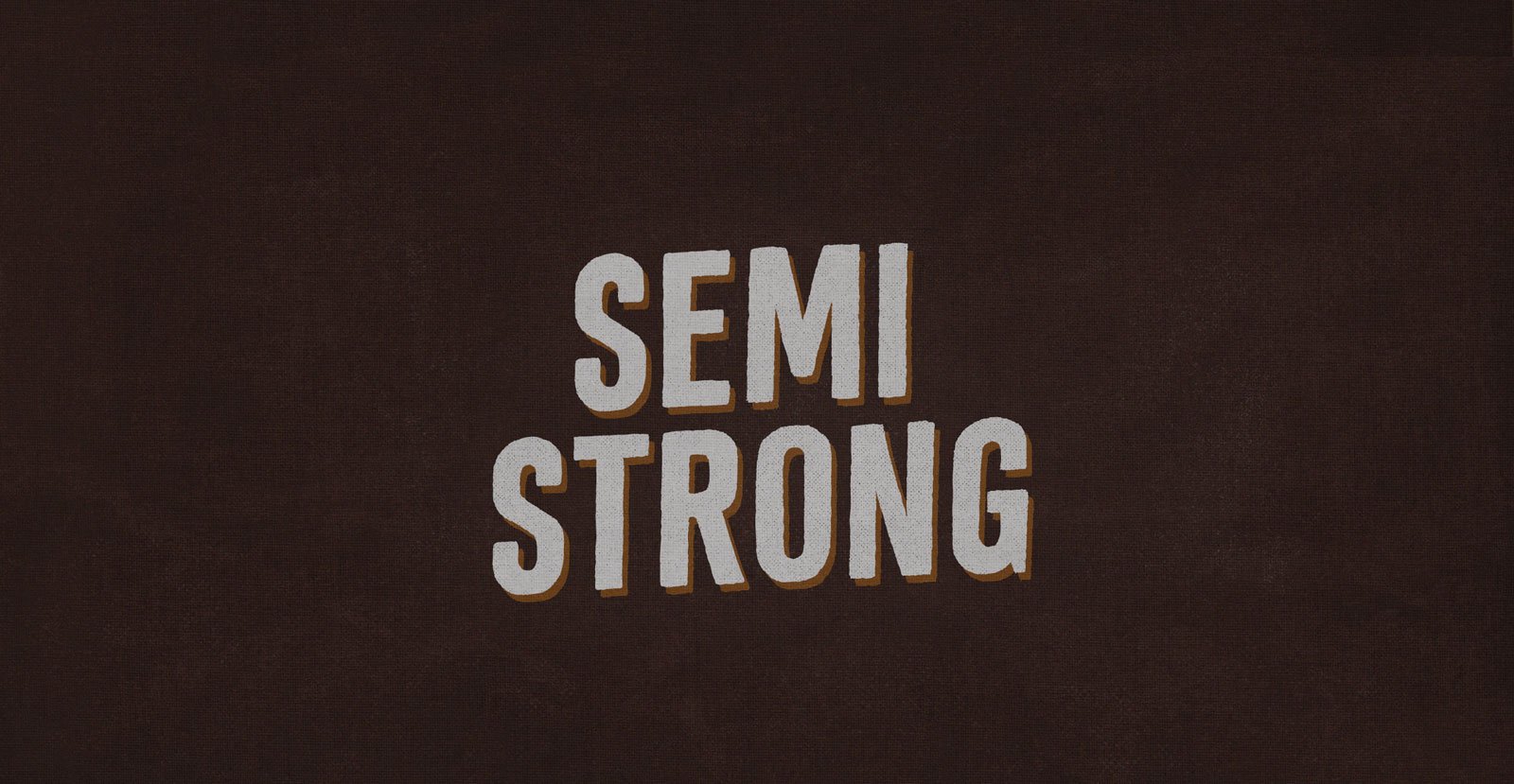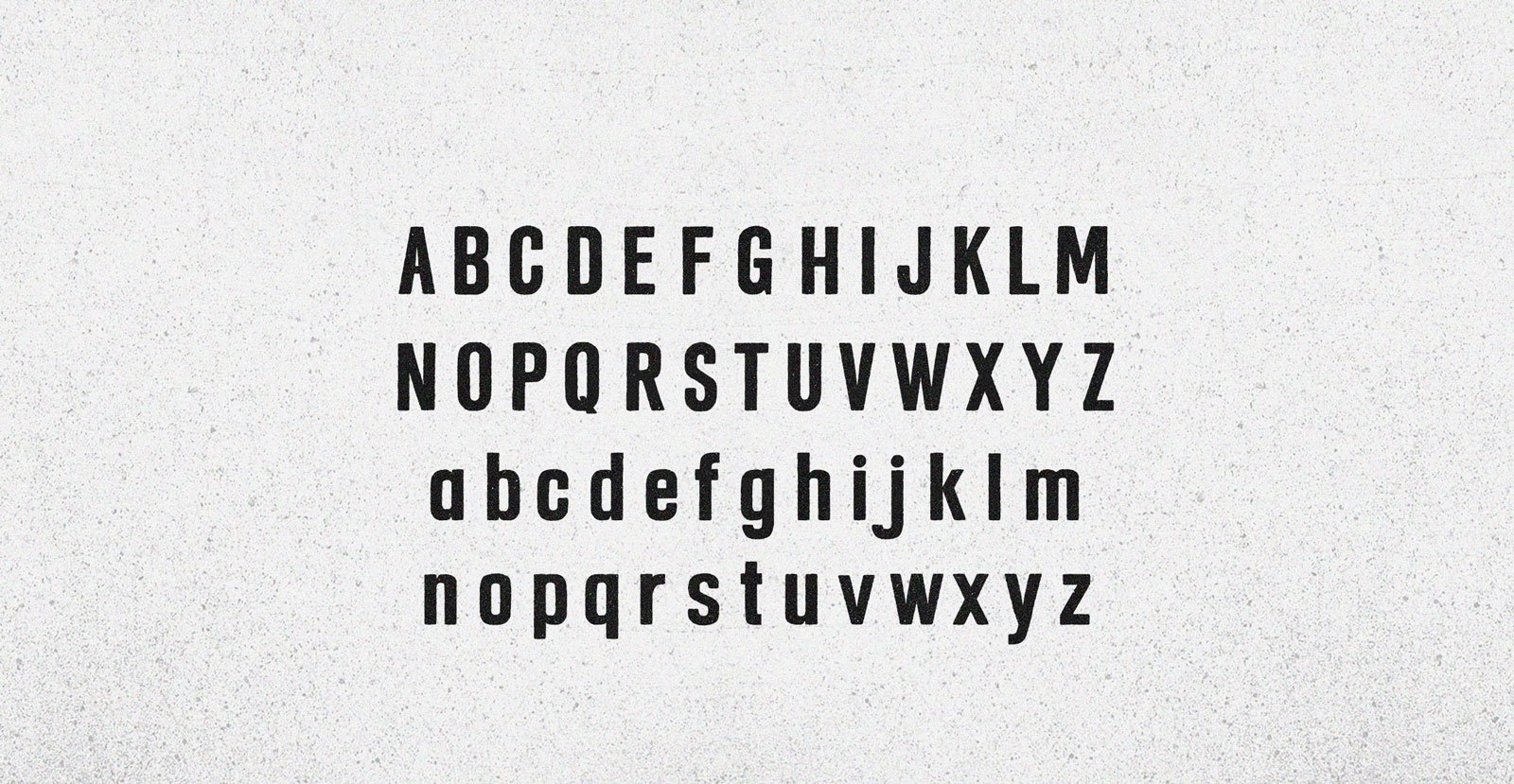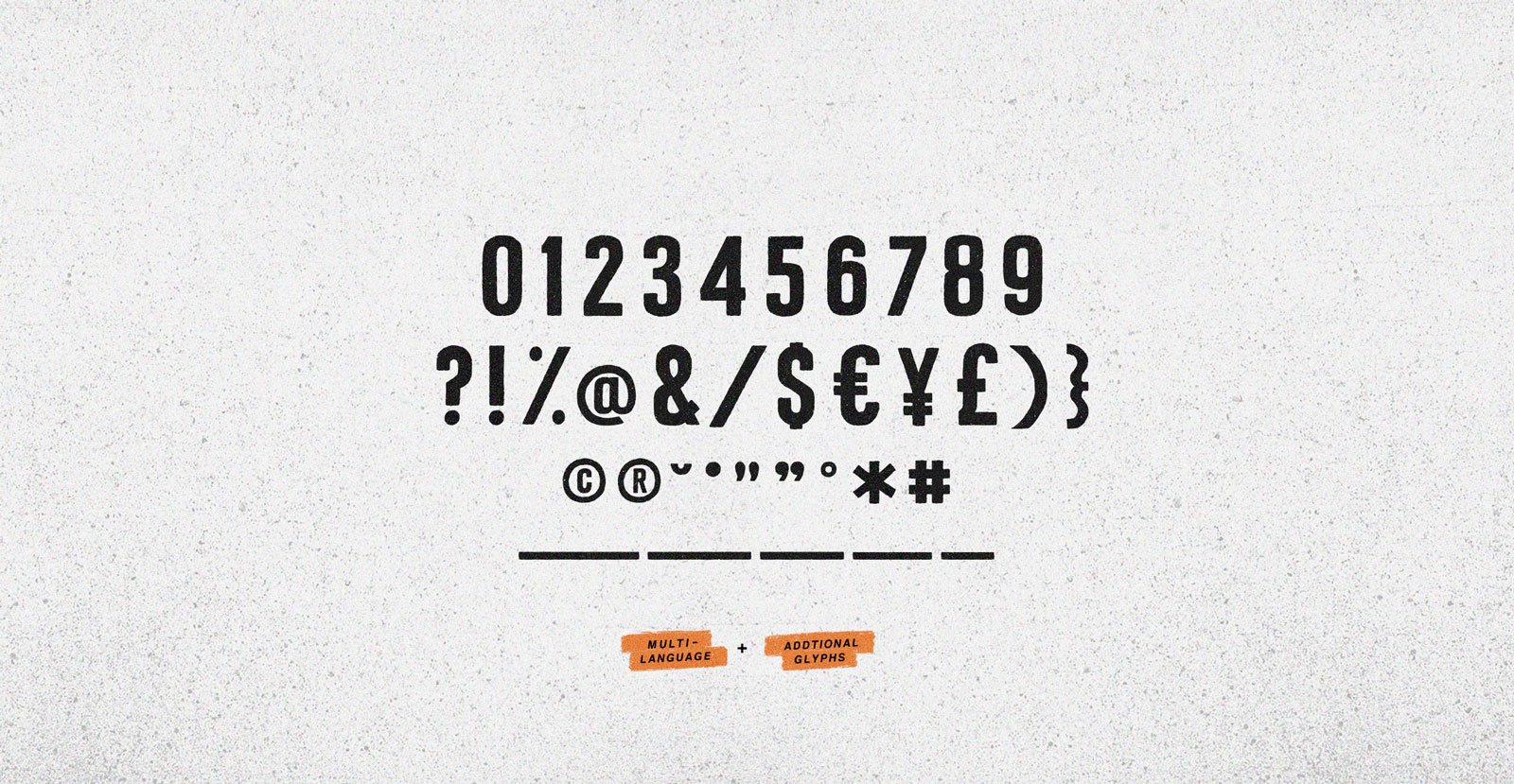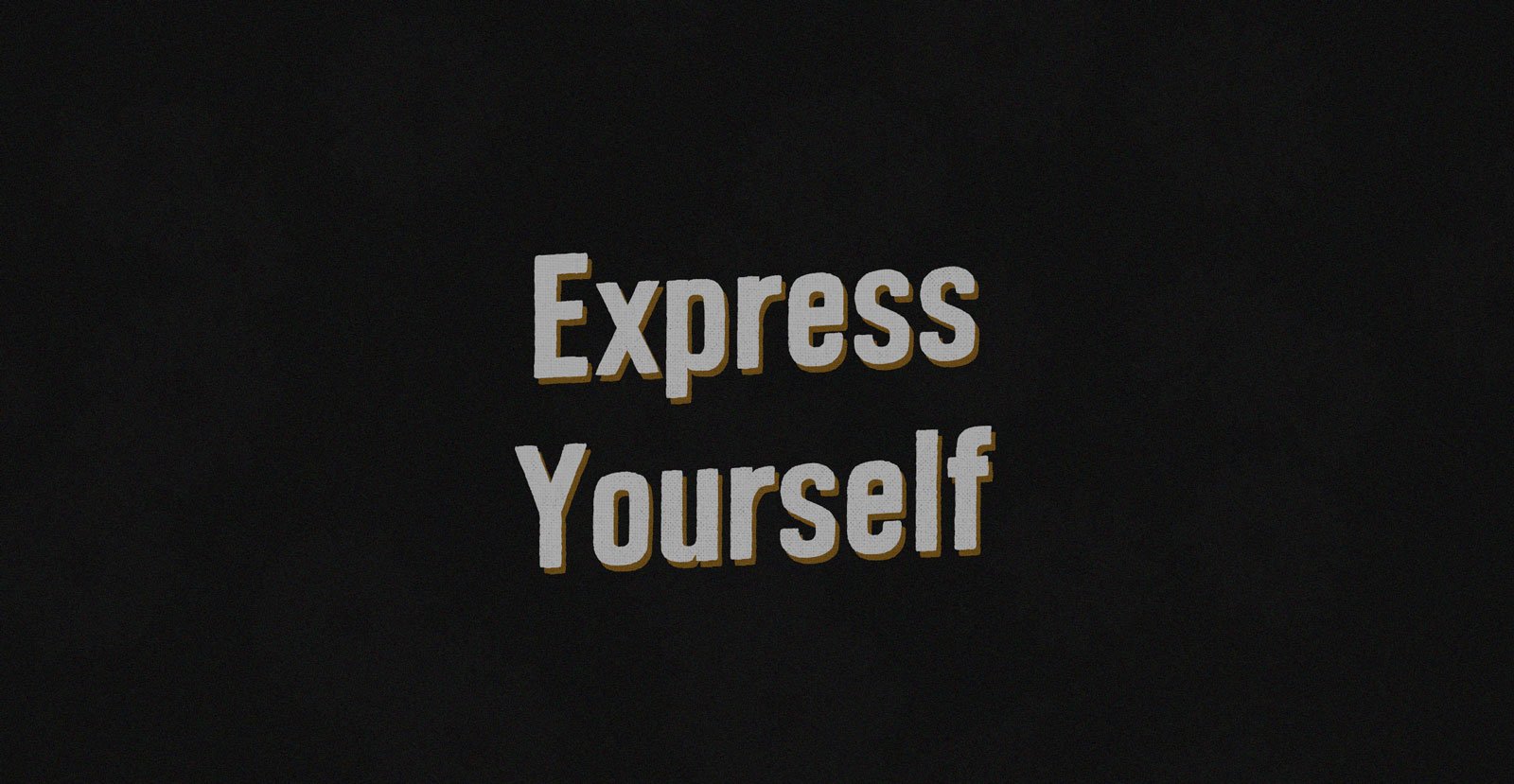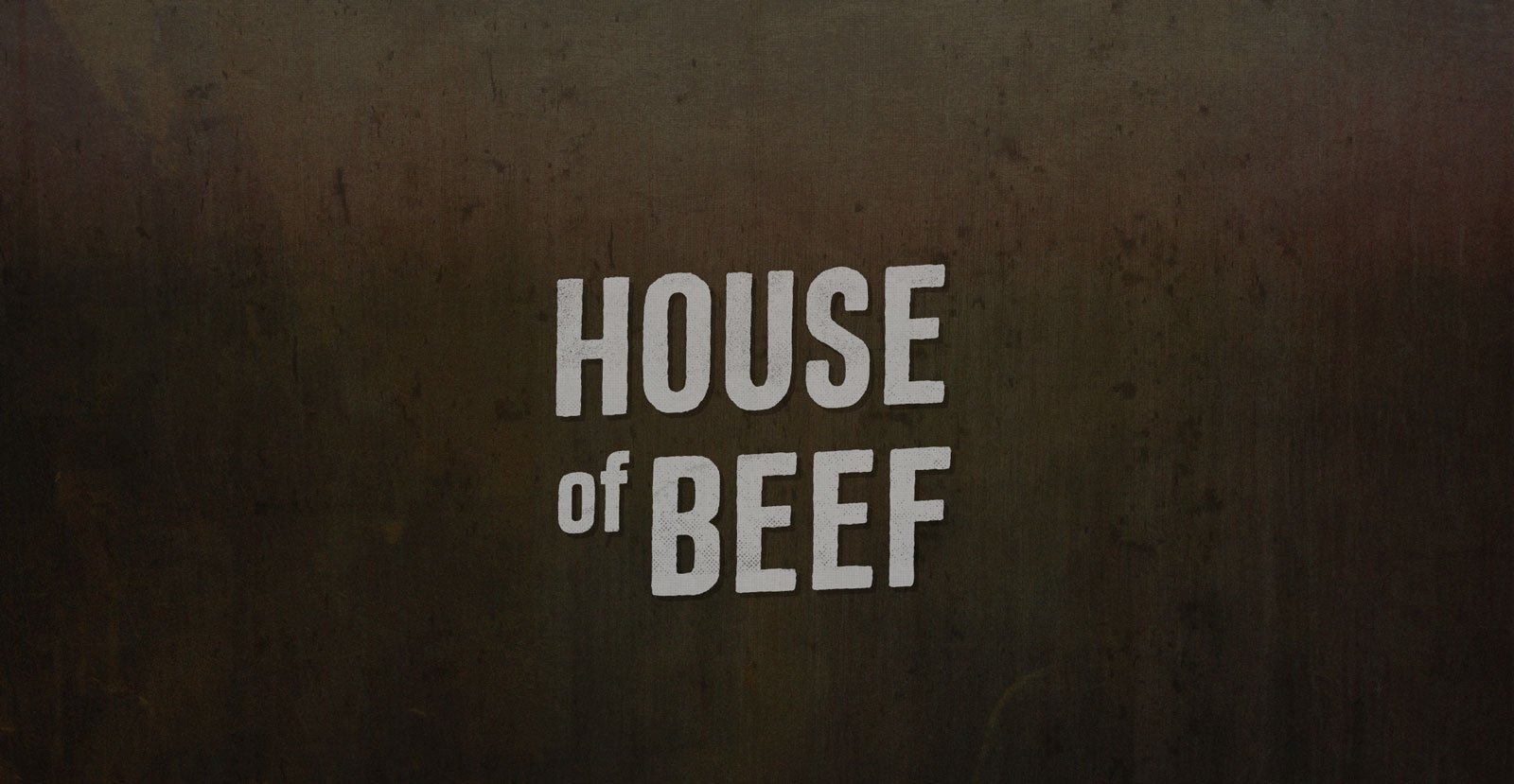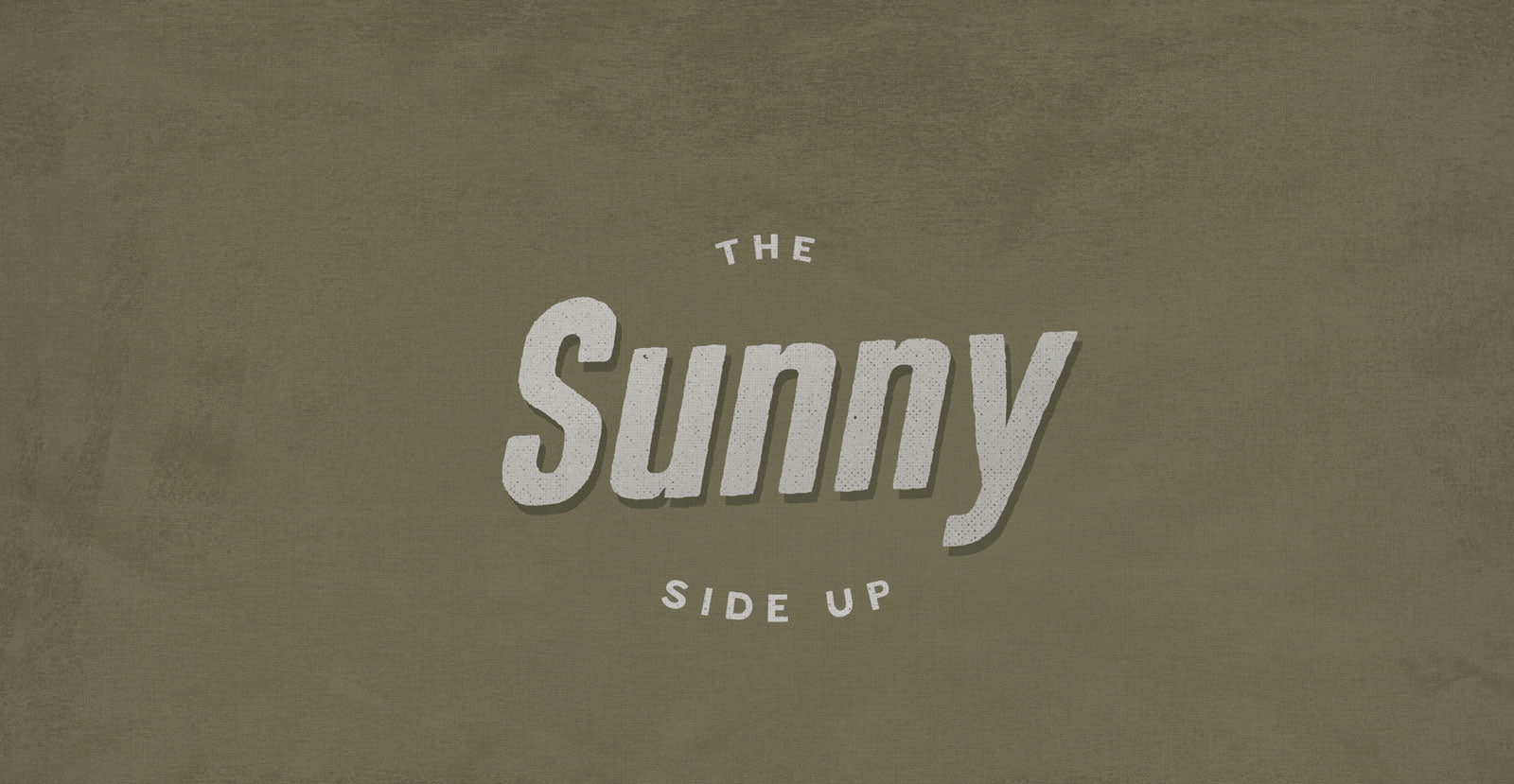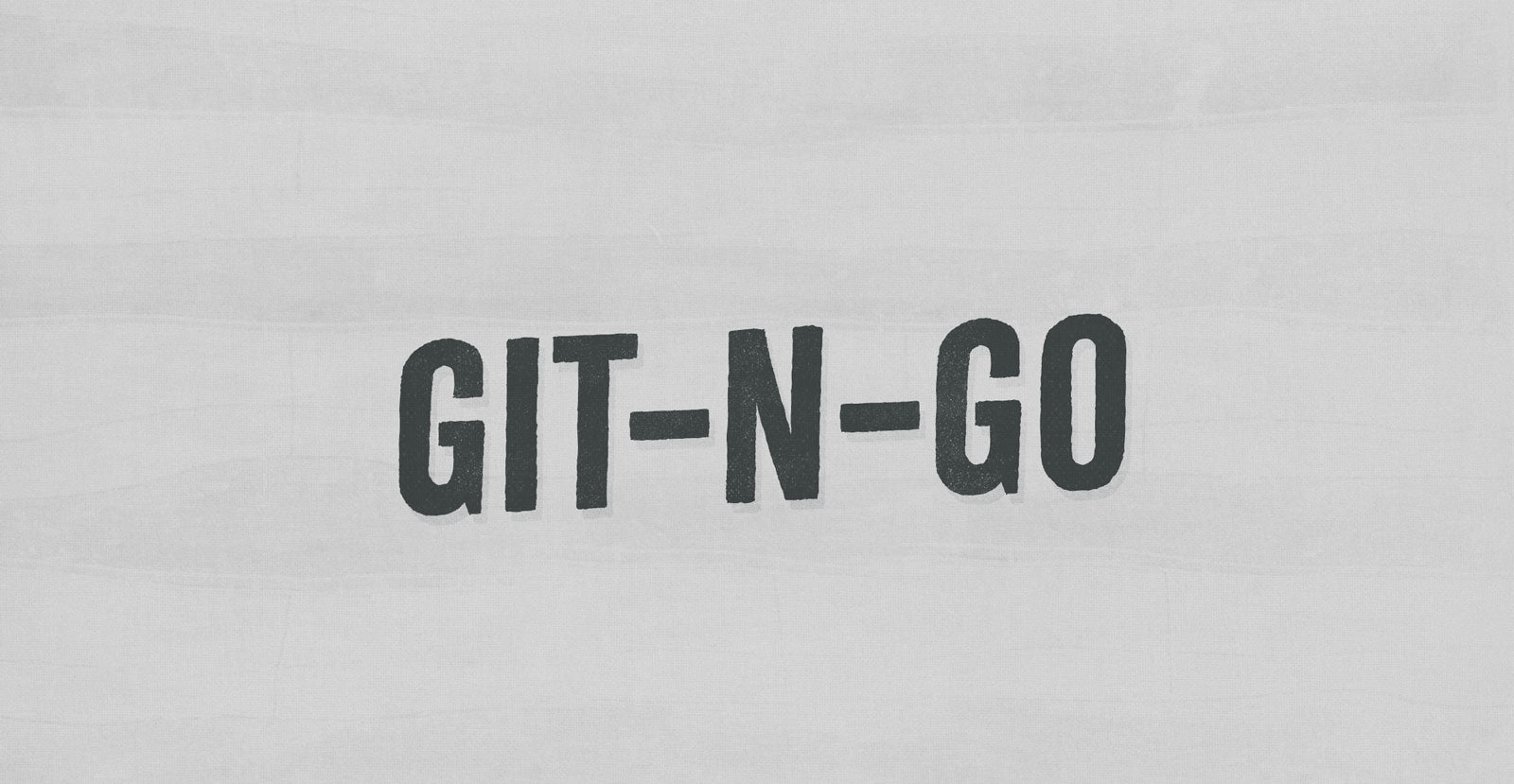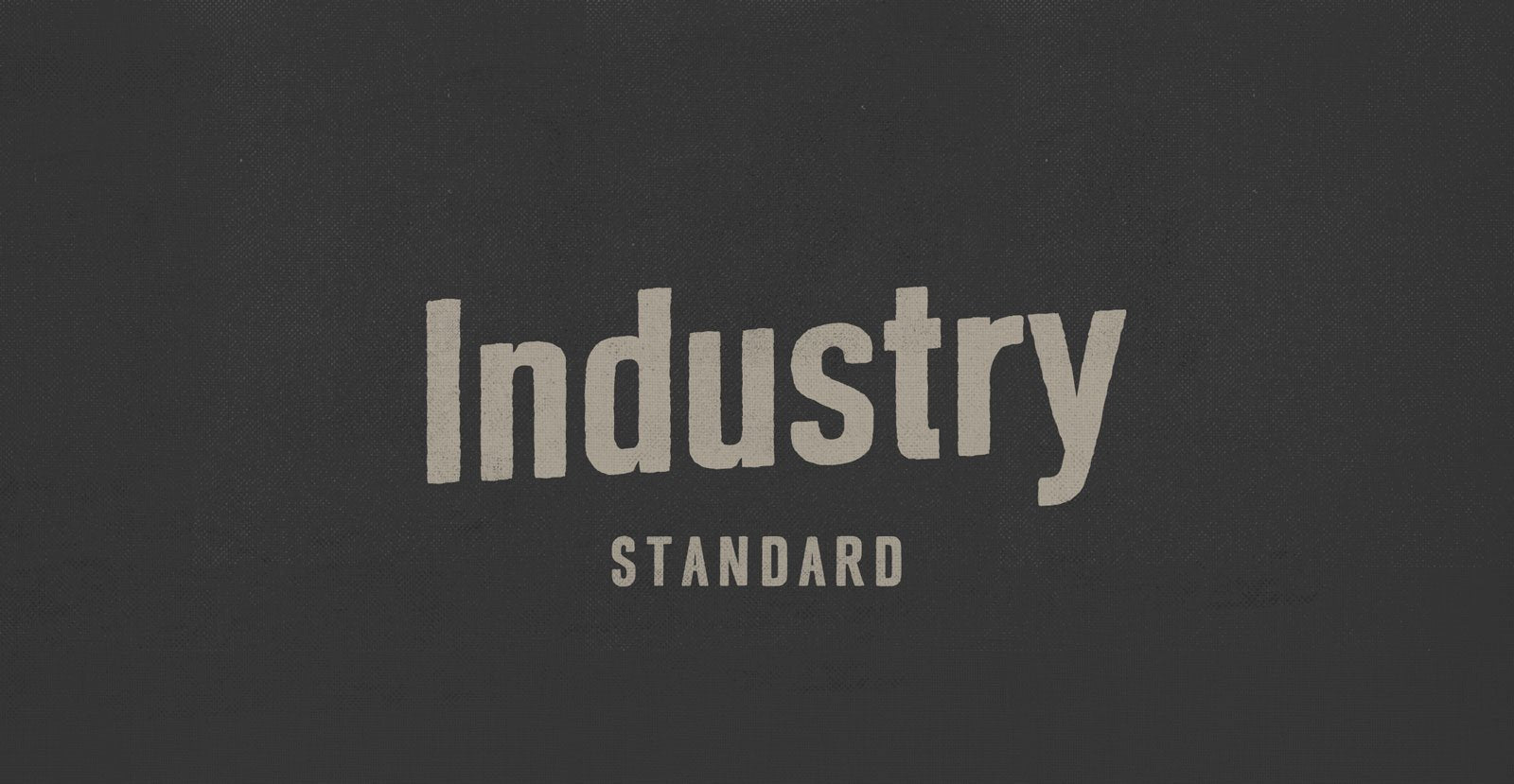
Semi Strong
Handwritten Sans Serif Font
Brushed in strokes broad enough to stand shoulder to shoulder, precise enough to stand on the point; still Semi Strong enough to hold the weight of ideals, lofty as the high minds that bore them.
• Underlines